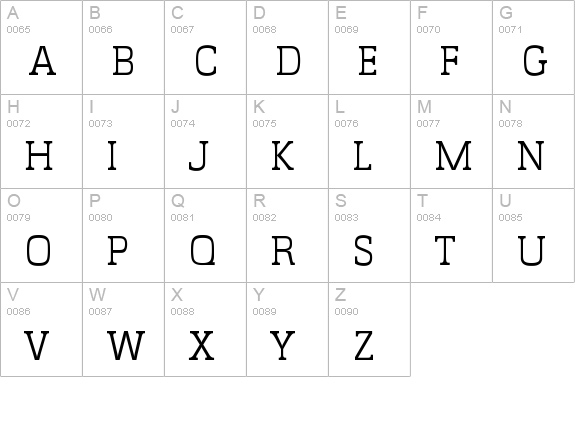
Enschede-Light is a refined, elegant variant in the Enschede typeface family \xE2\x80\x94 well suited to elegant body text, refined sub-headings, and luxury branding.
Enschede-Light is a modern and sleek typeface that exudes elegance and sophistication. With its clean lines and subtle curves, this font is perfect for adding a touch of refinement to any project. The light weight of this font gives it a delicate and airy feel, making it ideal for use in designs that require a sense of gracefulness. Enschede-Light is not only visually appealing but also highly versatile, making it suitable for a wide range of applications including branding, editorial design, and web design. Its readability and clarity ensure that your message will always come across effectively, no matter the context. The best part about Enschede-Light is that it is completely free to download at FontsMarket.com. So whether you are a designer looking to add a new font to your collection or a business owner in need of a stylish typeface for your branding materials, Enschede-Light is the perfect choice. Download it today and elevate your designs with this beautiful and modern font.